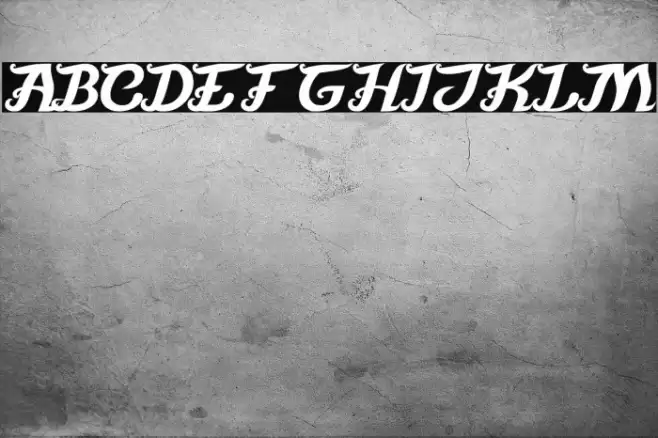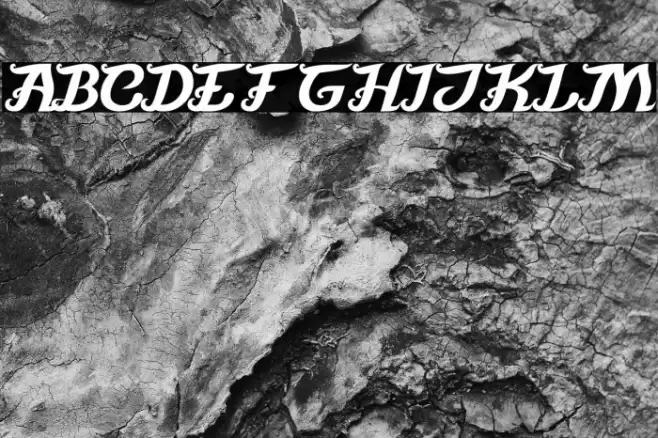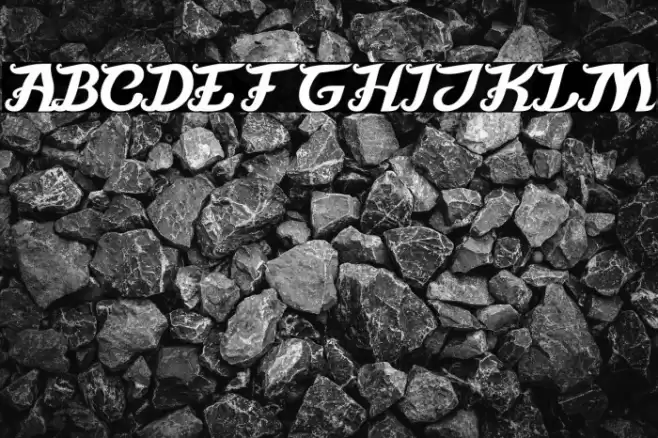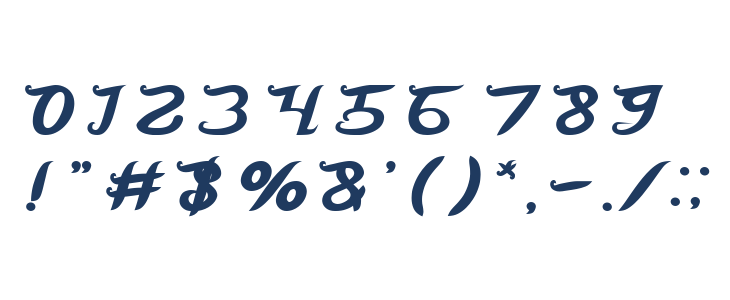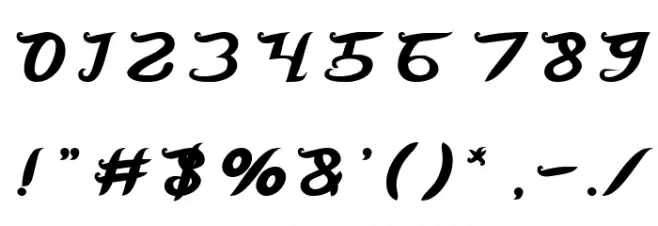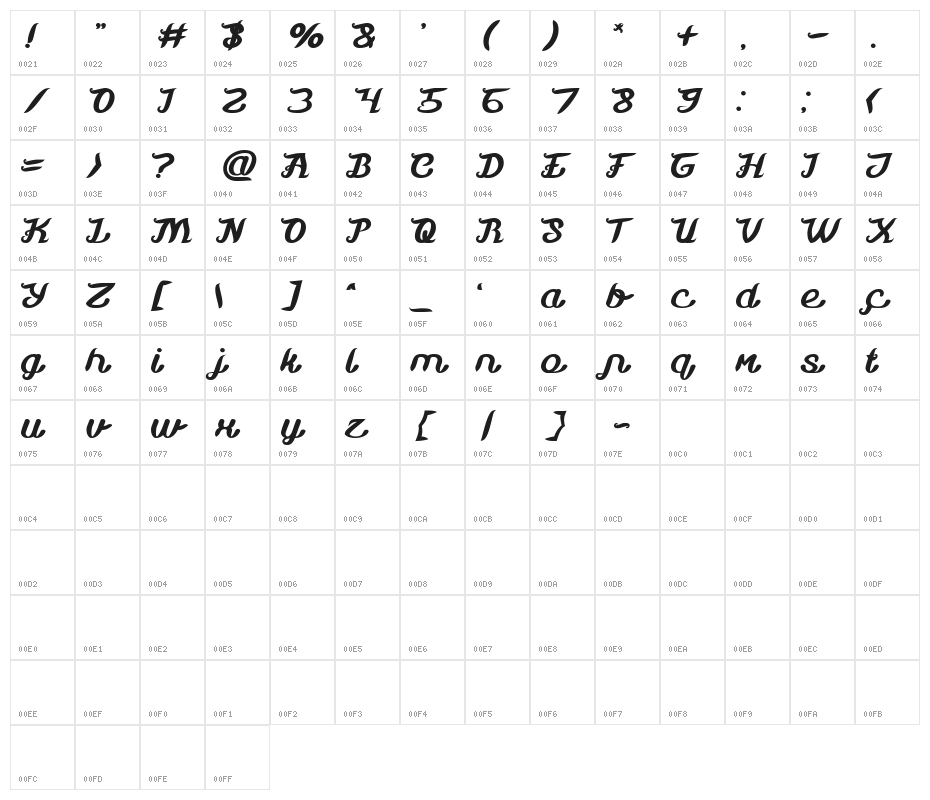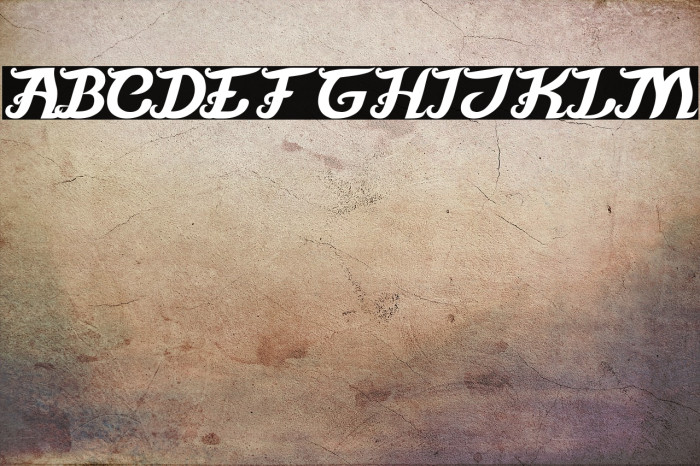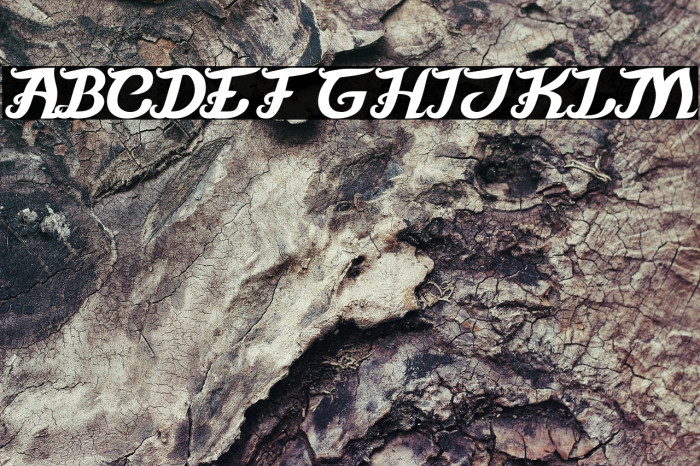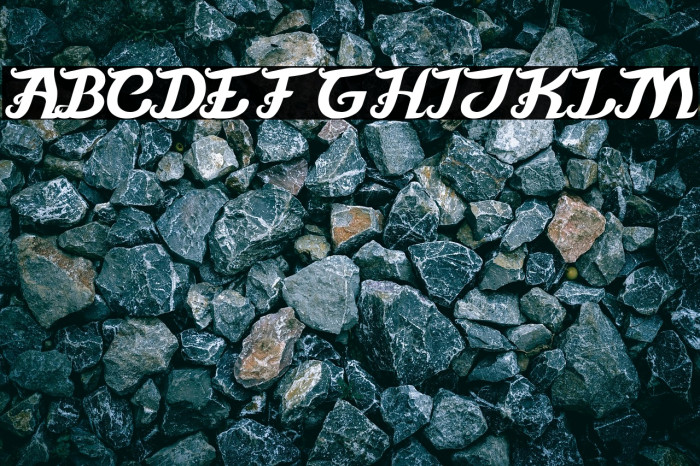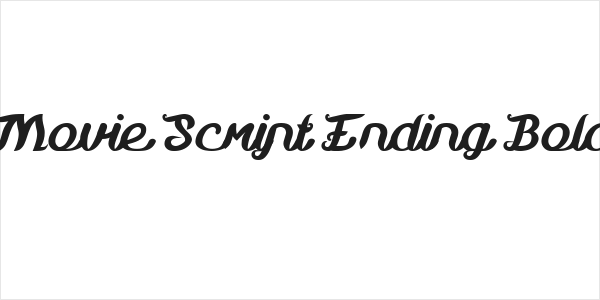
Movie Script Ending Bold Font
Movie Script Ending Bold Description
This font features a bold, cursive style with a flowing script that mimics the elegance of handwritten calligraphy. The uppercase letters are ornate, with dramatic flourishes and loops that add a sense of sophistication. The lowercase letters maintain a consistent flow, connecting smoothly to create a cohesive look. Numbers and punctuation follow the same stylistic cues, ensuring uniformity across all characters. The overall design is both decorative and legible, making it suitable for various creative applications.
A bold, cursive script with elegant flourishes and a handwritten feel from Uncategorized fonts.
- Proposed Projects: Ideal for wedding invitations, greeting cards, branding projects, and any design requiring a touch of elegance and personality.
- Use Case: Logos, Invitations, Decorative text